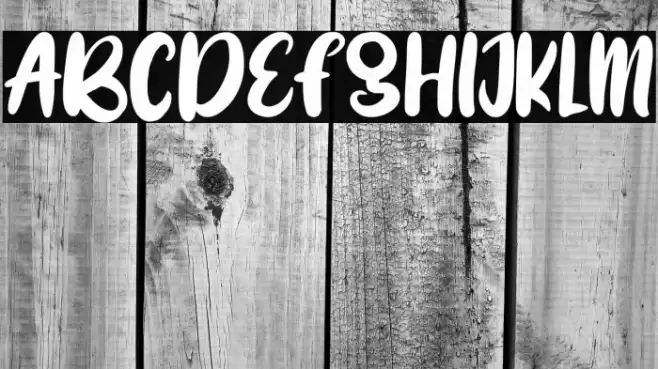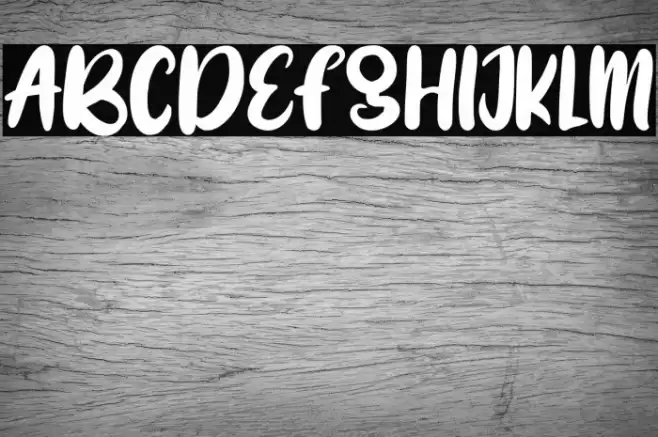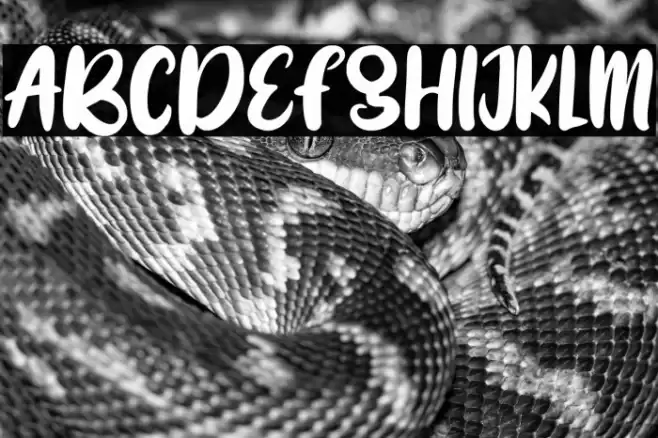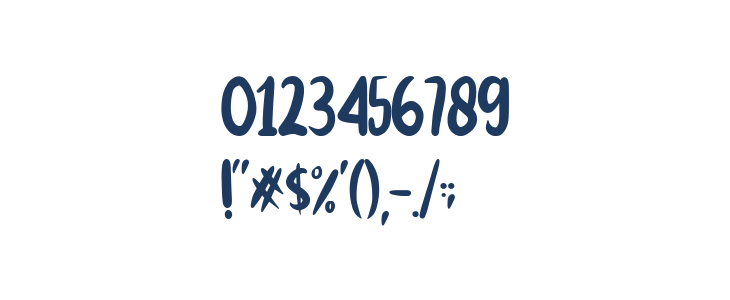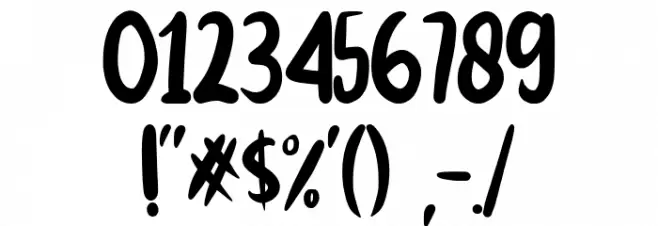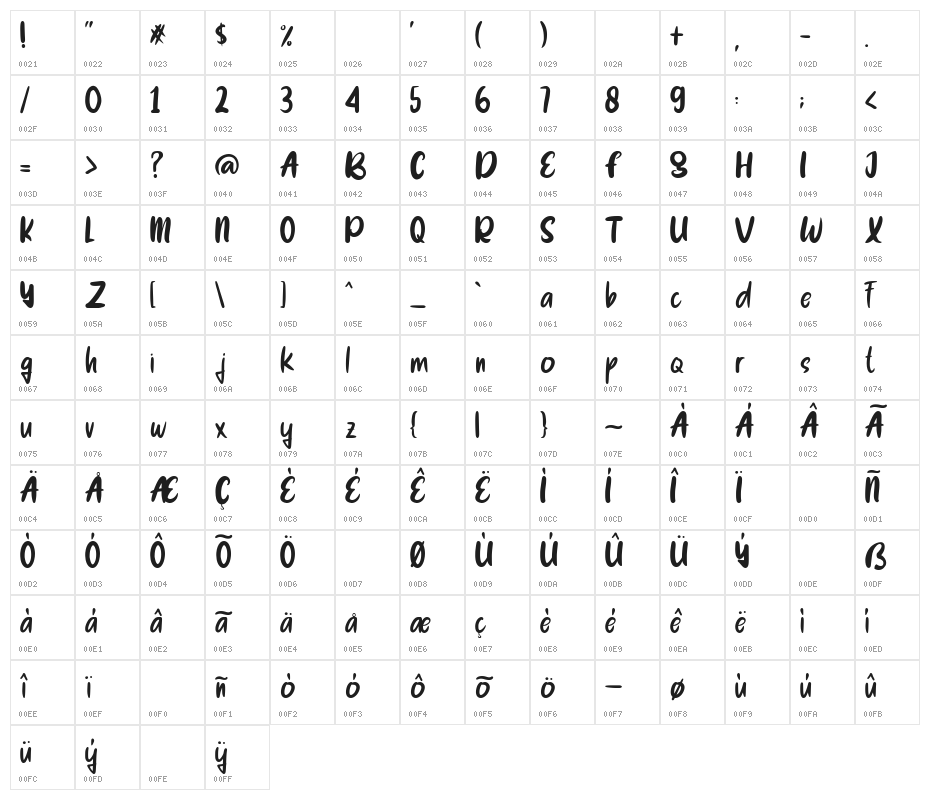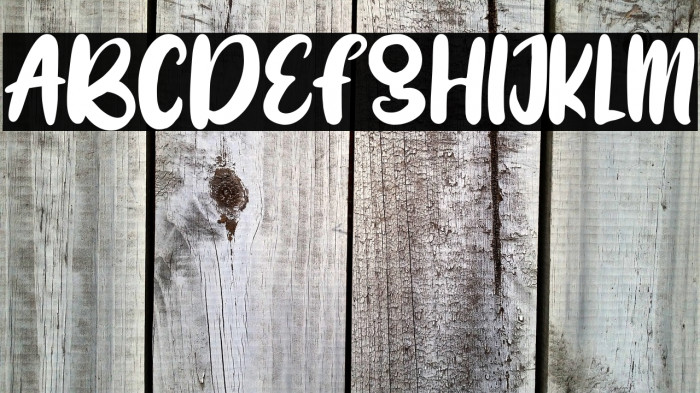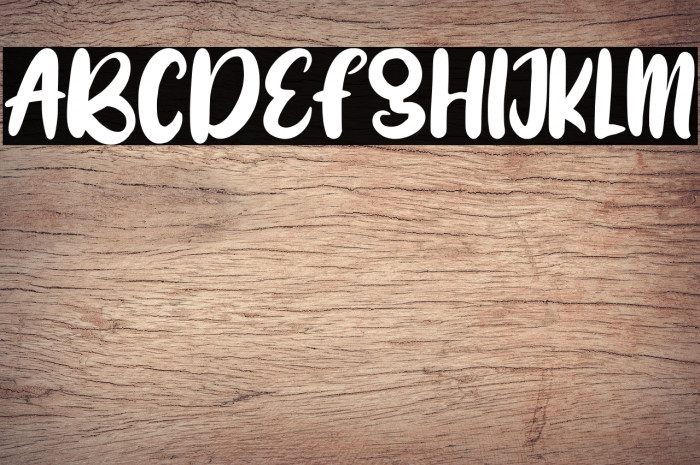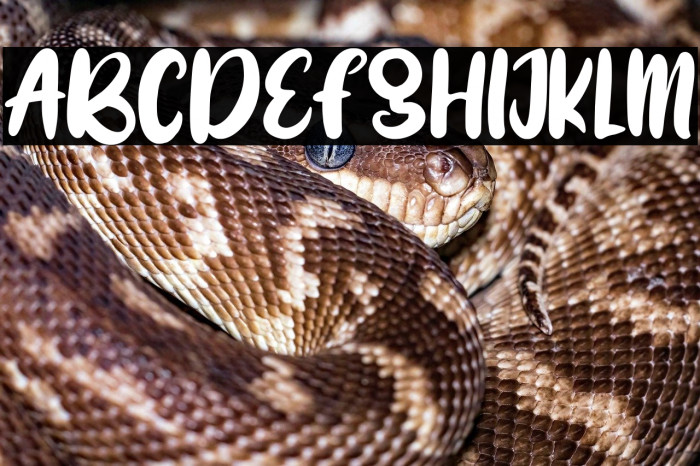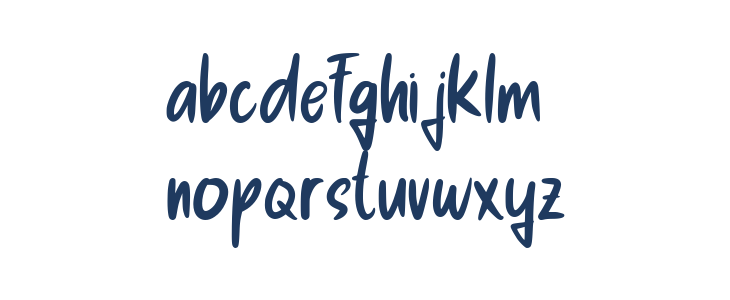
BRIGHT SMILE Font
BRIGHT SMILE Description
This font features a playful and bold script style with a handwritten feel. The characters are rounded and slightly slanted, giving them a dynamic and lively appearance. The uppercase letters are bold and prominent, while the lowercase letters maintain a consistent flow, enhancing readability. The numbers and special characters follow the same playful style, making them suitable for various creative applications. The overall design is cohesive, with smooth curves and a friendly aesthetic that adds a touch of personality to any text.
A playful, bold script font with a handwritten feel from Uncategorized fonts.
- Font: BRIGHT SMILE
- Proposed Projects: Ideal for greeting cards, playful branding, children's books, and social media graphics.
- Overall Style: Playful, Handwritten